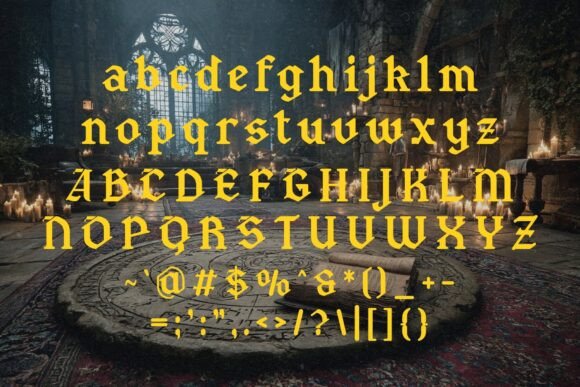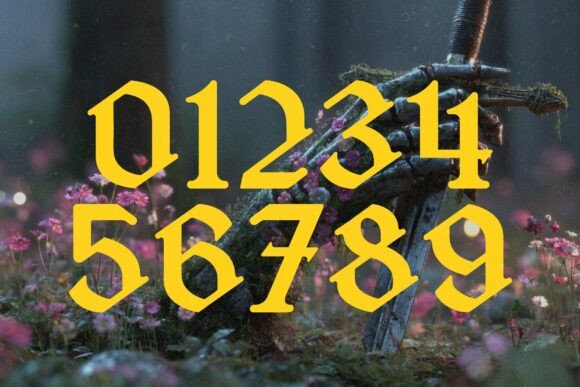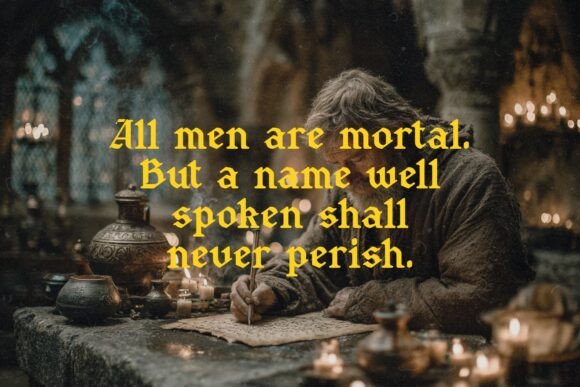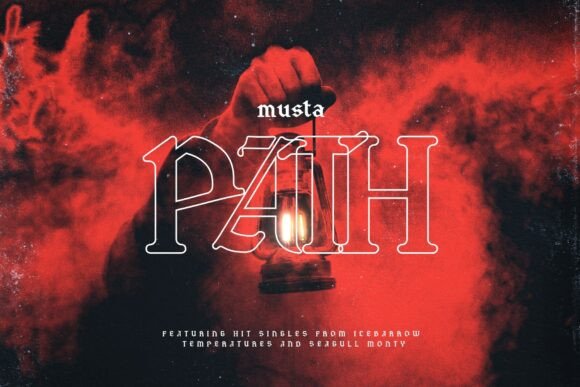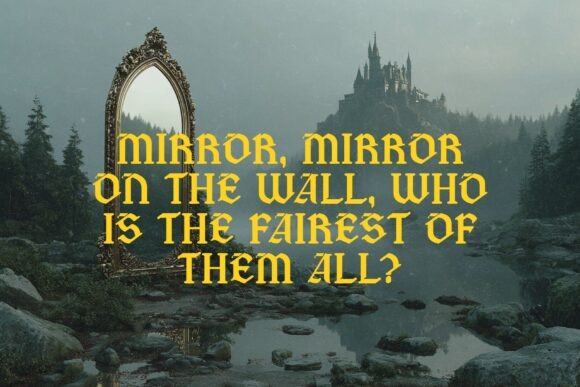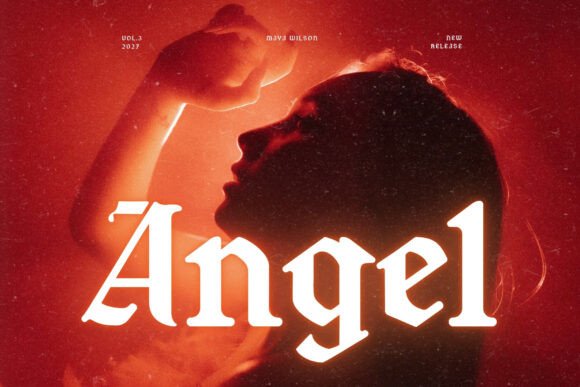
Introduction to Black Vesper Font
Step into a world where shadows whisper, legends awaken, and ancient runes pulse with forgotten power.
Black Vesper is not just a typeface, itโs a summoning Crafted with precision and reverence for medieval form, this gorgeous blackletter font channels the spirit of illuminated manuscripts, battle-worn banners, and forbidden tomes.